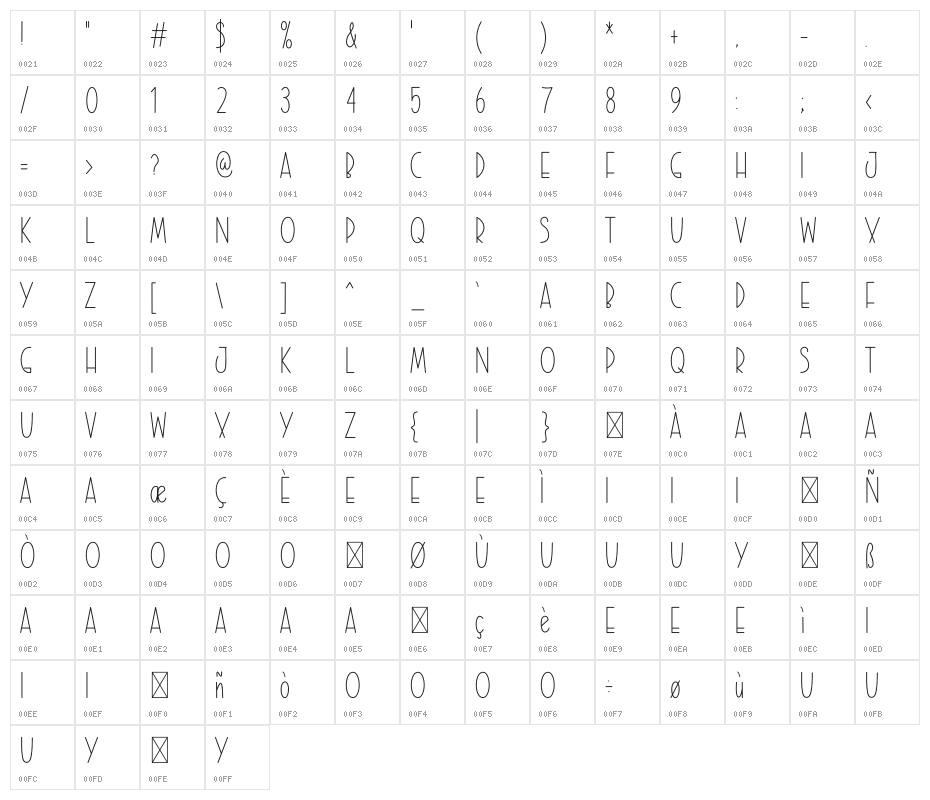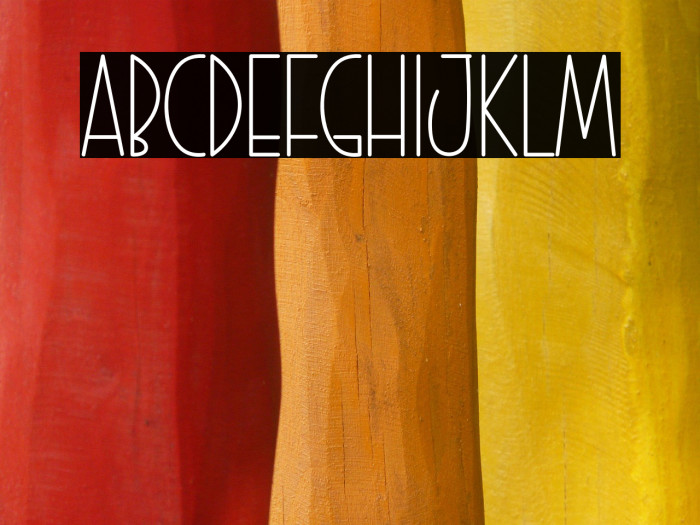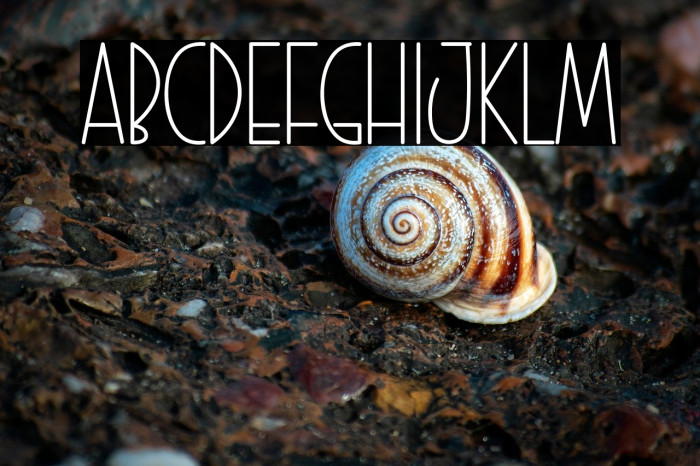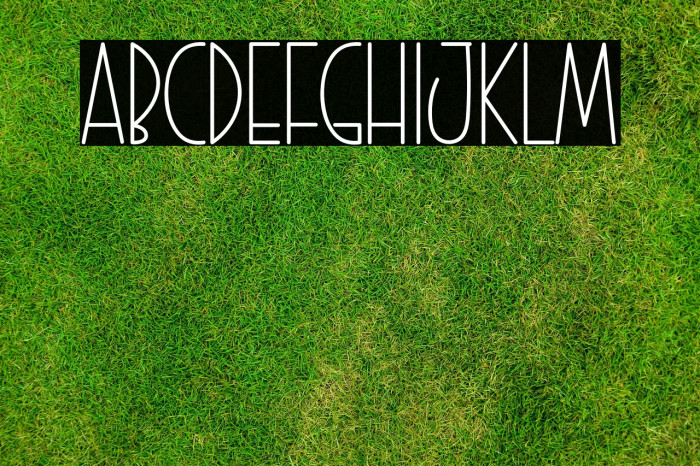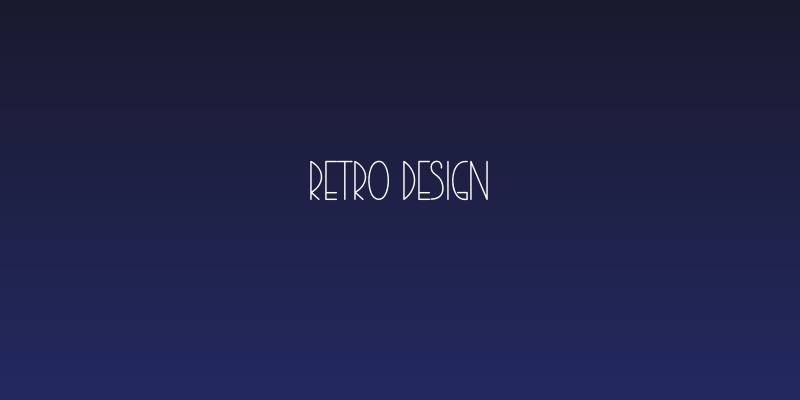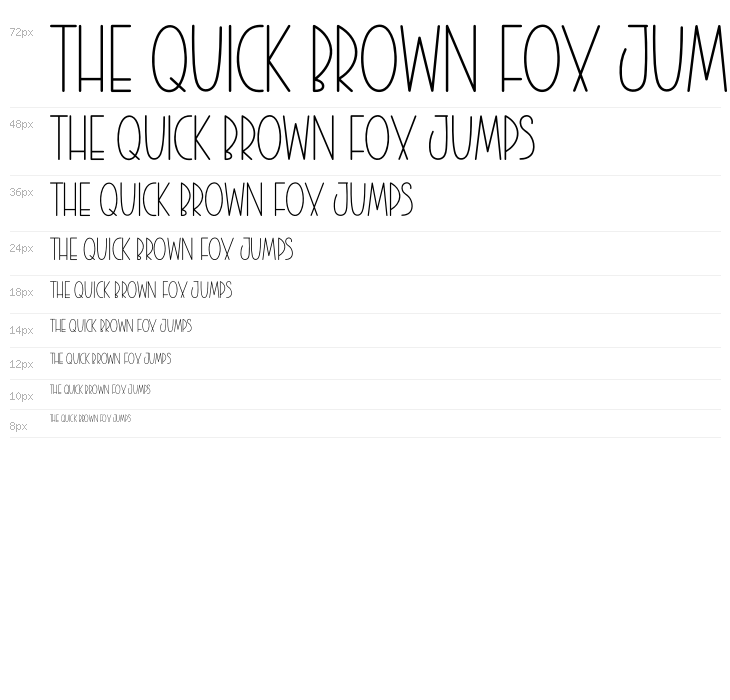
Retro Design Font
Retro Design Description
A tall, narrow, geometric sans-serif font with thin strokes and a distinct retro vibe, featuring consistent line weight and rounded curves, giving it a playful yet elegant appearance.
| Width | Condensed |
| Overall Style | Retro, Decorative, Modern |
| Use Case | Headlines, Logos, Posters, Display text |
| Proposed Projects | Posters, vintage branding, retro packaging, event invitations, signage. |